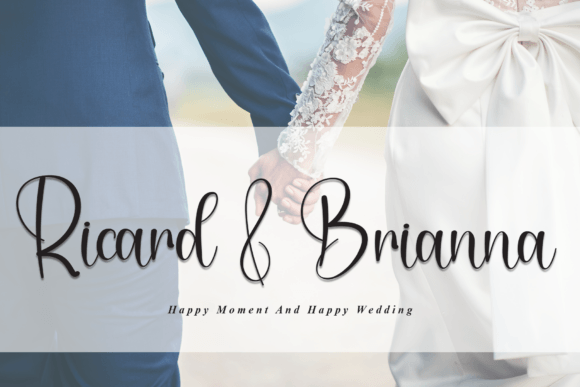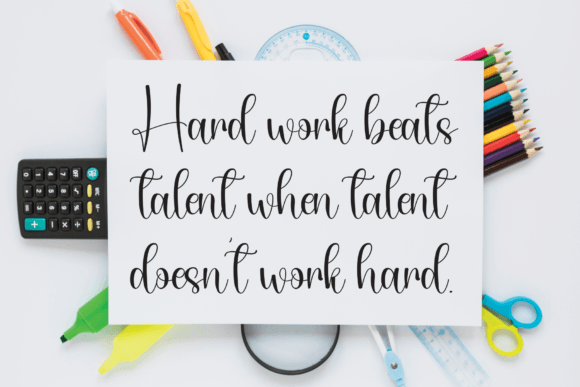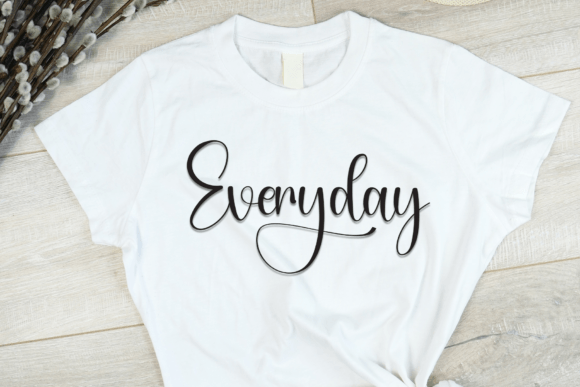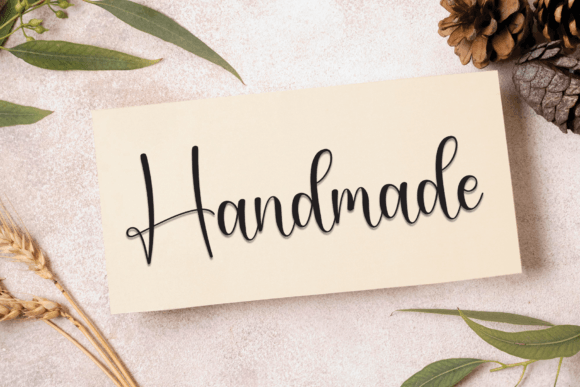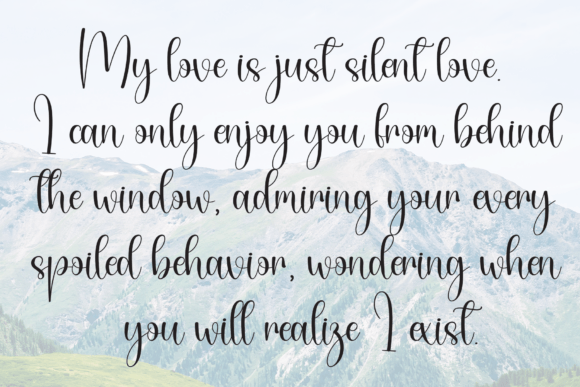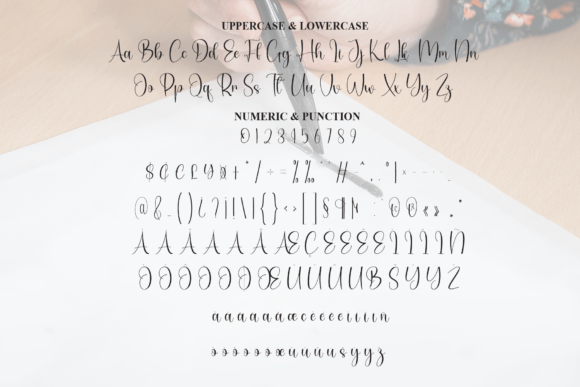
The Perfect Script for Your Masterpiece: Introducing Autography Font
Do you remember the moment when a handwritten note from a loved one made your day? The personal touch, the love, and the care that goes into every stroke of the pen? That’s exactly what the Autography Font aims to capture in the digital world. This stylish handwritten script font is designed to exude elegance and charm, making it perfect for adding a personal touch to invitations, branding, or social media.
For designers, the Autography Font is a valuable tool to bring warmth and creativity to any design. Its fluid strokes and natural flow create a captivating, sophisticated look that’s sure to leave a lasting impression. Whether you’re creating a wedding invitation, a logo, or a social media post, the Autography Font is sure to add a unique touch that sets you apart from the crowd.
Autography Font Key Features
- Font Family: Autography Font is a modern script font designed for elegant and sophisticated typography. It is available in multiple font families, including Autography, Autography Script, and Autography Pro.
- Unique Characteristics: Autography Font features a unique, hand-written design with subtle flourishes and connectors. It is ideal for use in wedding invitations, menus, and other special occasion materials.
- Language Support: Autography Font supports a wide range of languages, including English, Spanish, French, German, Italian, and many others. It also includes a range of ligatures and swashes to enhance its elegant appearance.
- Font Weight and Style: Autography Font is available in various font weights, including Light, Regular, Medium, Bold, and Black. It also includes a range of font styles, including Uppercase, Lowercase, and Titling.
Autography Font Review
First off, I really like the aesthetic of Autography Font. The elegant script feel and flowing lines make it perfect for adding a touch of sophistication to any design project ✨. It’s particularly well-suited for invitations, wedding stationery, or any other type of design where you want to convey a sense of luxury and refinement.
Another great aspect of Autography Font is its versatility. It comes in a range of weights and styles, from light and delicate to bold and dramatic, making it easy to find the perfect fit for your design needs ✨. The font also works well in both digital and print formats, which is a big plus in today’s multi-channel design landscape.
- ⚠️ Limited character set: Autography Font has a relatively limited character set, which can make it difficult to use for longer blocks of text. This may require you to use other fonts in conjunction with Autography to achieve the desired look.
- ⚠️ Not ideal for body copy: While Autography Font is great for headings and titles, it’s not the best choice for body copy. The font is a bit too ornate and can be difficult to read in larger quantities.
Overall, I think Autography Font is a great addition to any designer’s toolkit. While it may have some limitations, its unique aesthetic and versatility make it a valuable resource for designers looking to add a touch of elegance to their projects ✨. Just be sure to use it judiciously and in conjunction with other fonts to achieve the best results.